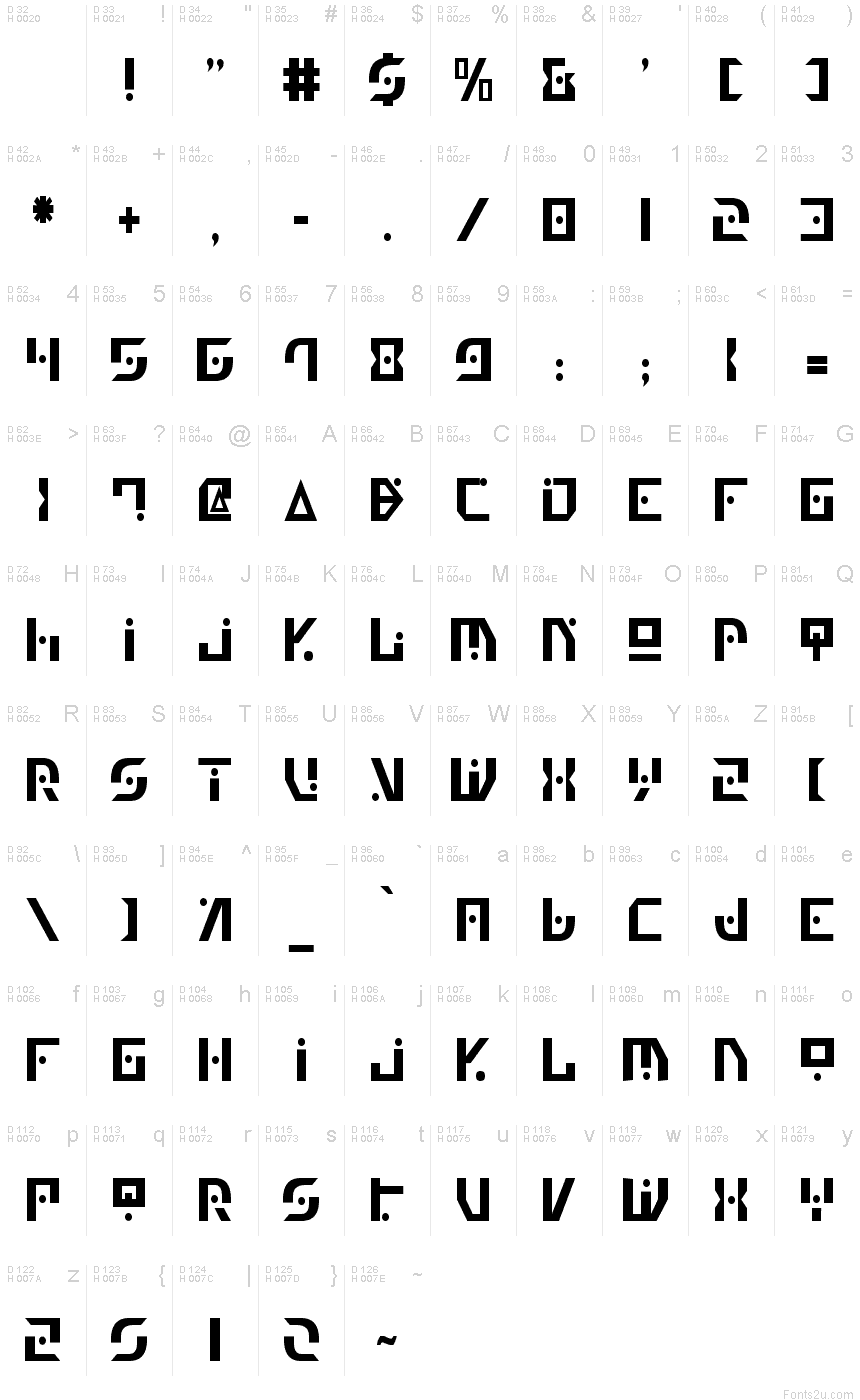
Generation Nth Condensed, a free futuristic display font by Iconian Fonts, builds tall letters from rigid slabs and sharply cut geometric forms. Circular dots recur inside the narrow shapes, suggesting machine controls or punched panels. The silhouette is stark and mechanical.
Digital graphics make a natural home for this industrial lettering. It can turn game menus, science-fiction posters, and electronic music artwork into parts of an imagined interface. The look is aimed at technology and retro-futurist audiences.